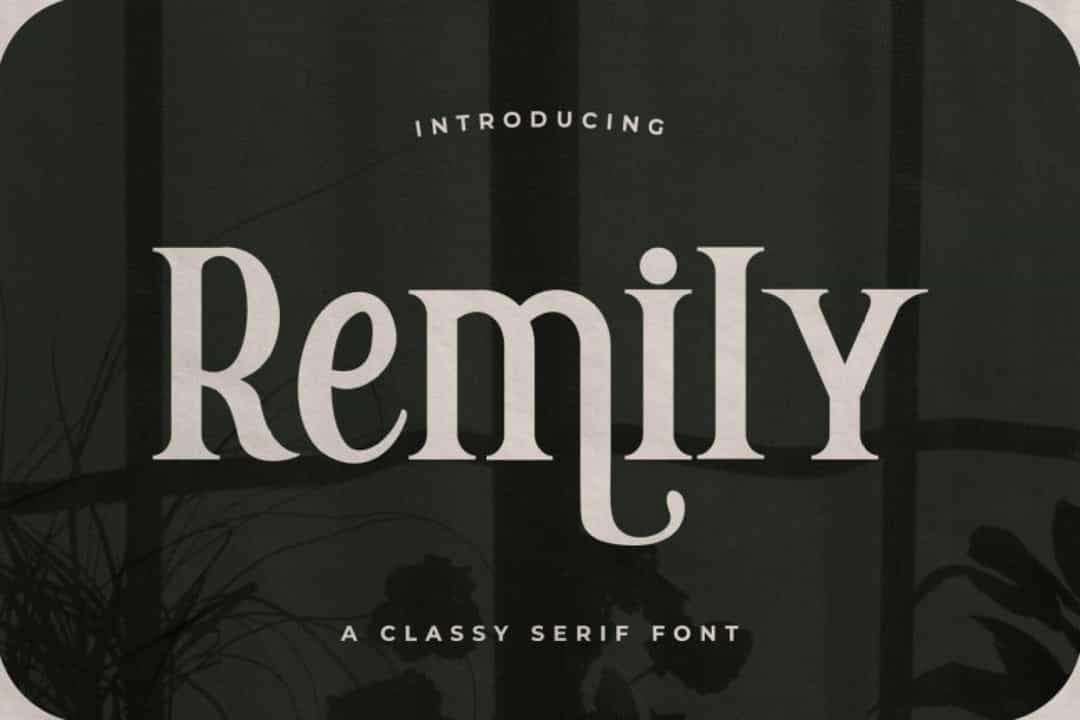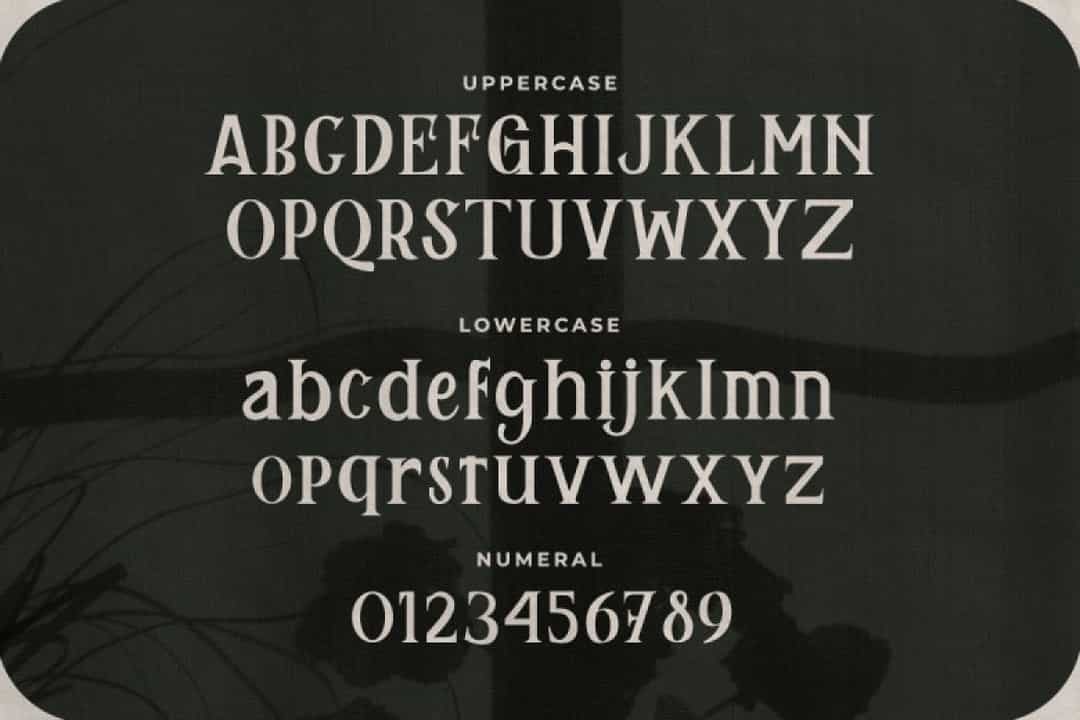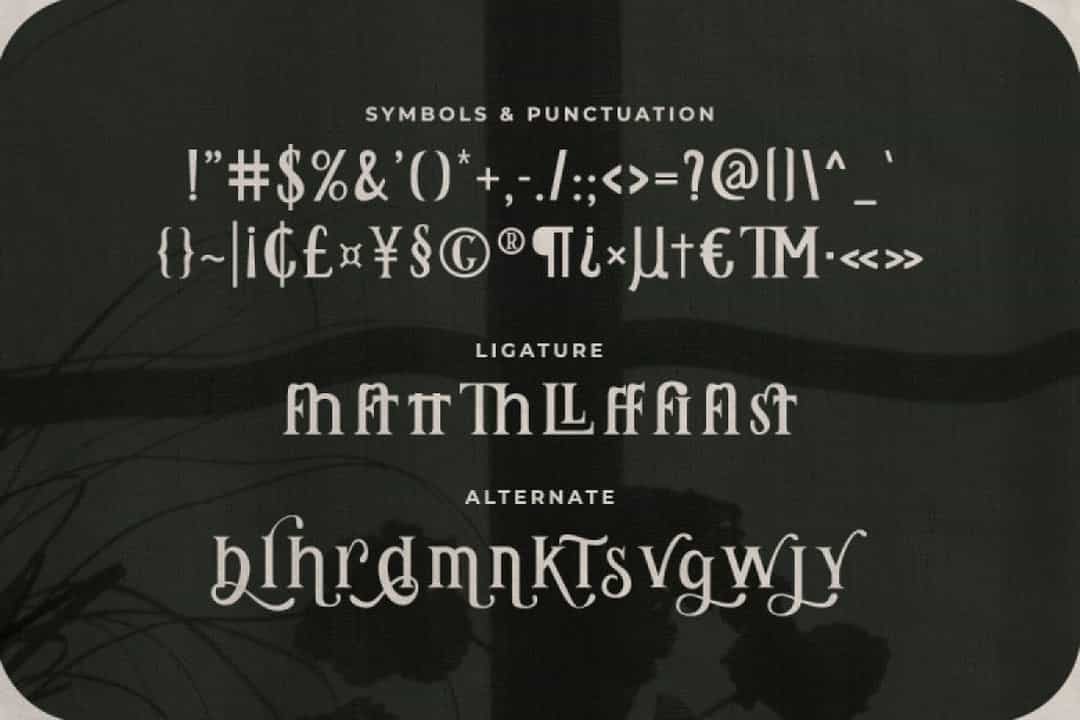
Remily is an elegant serif font. PUA encoded, you have easy access to all glyphs and swashes – be charmed by its incredible versatility for stunning designs!